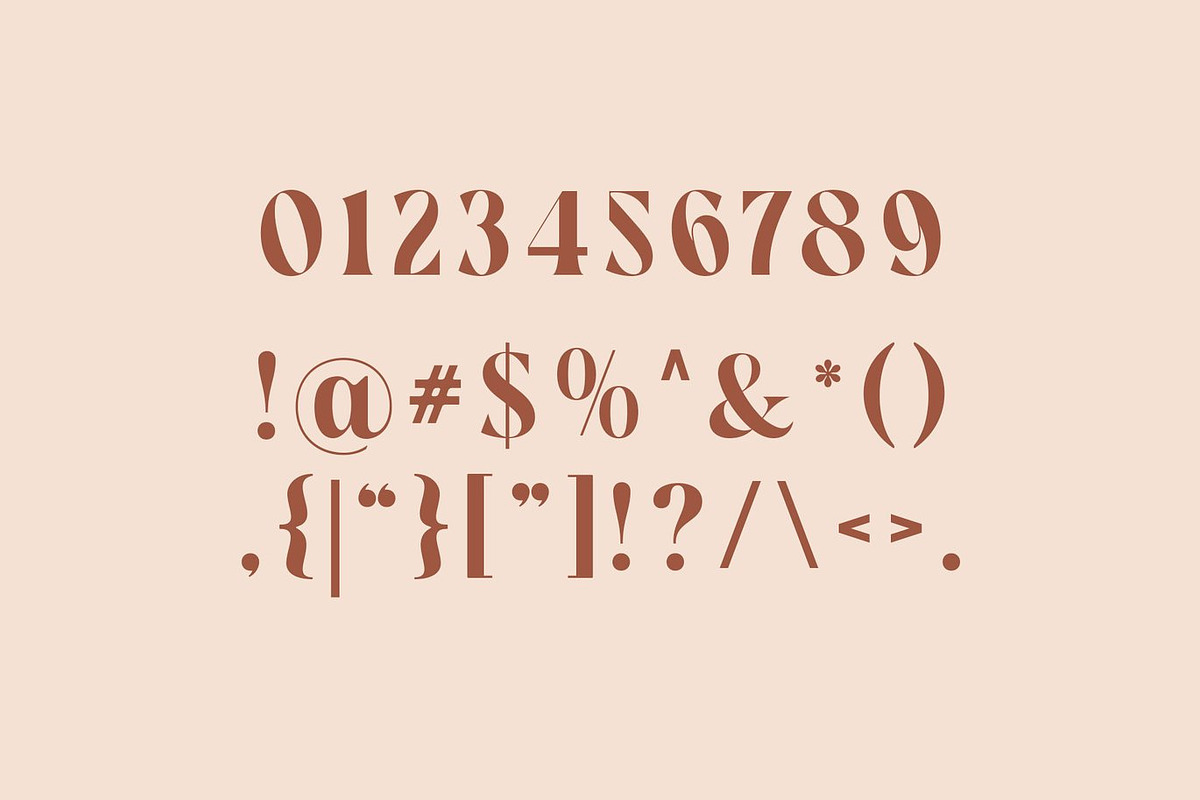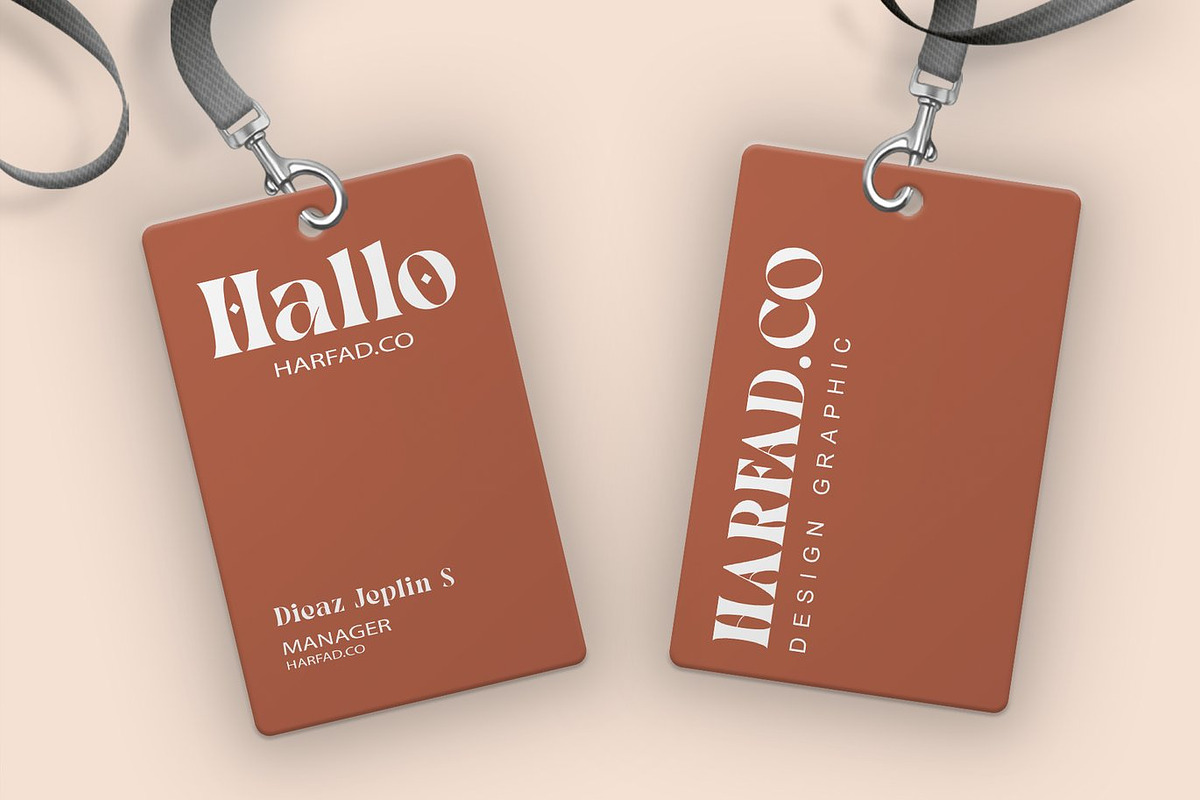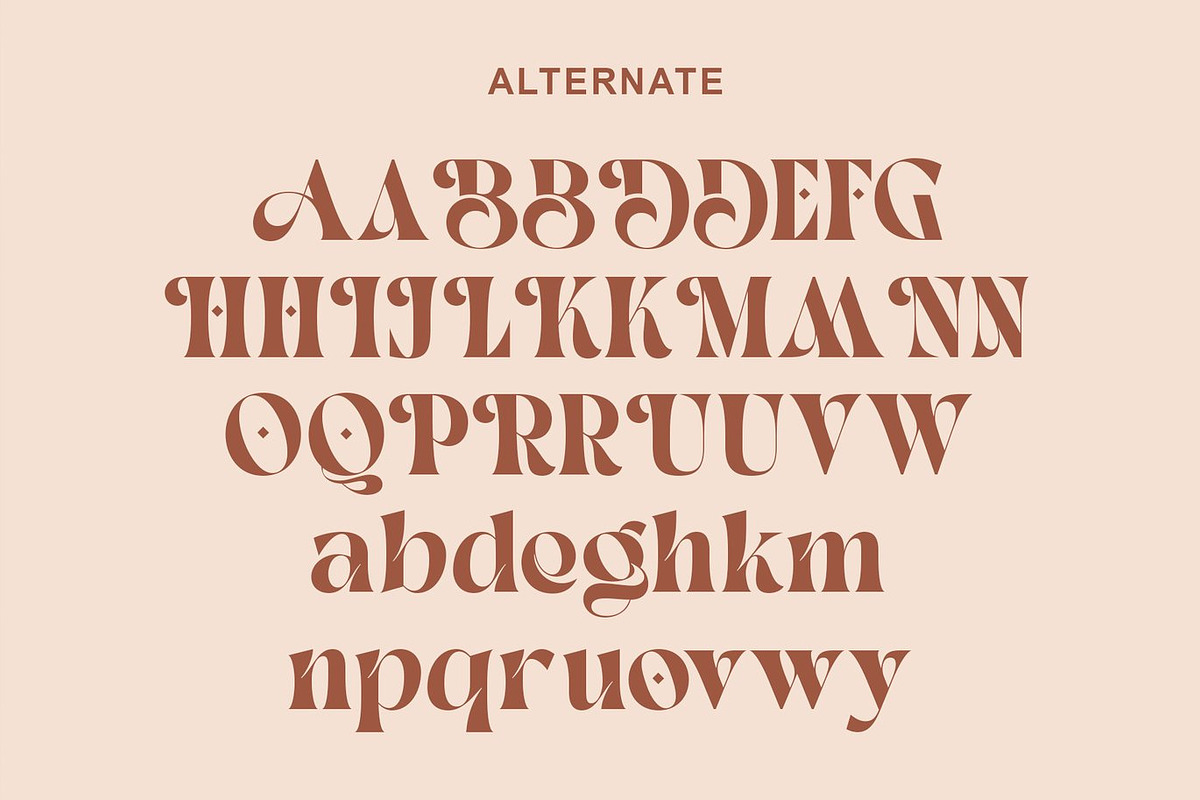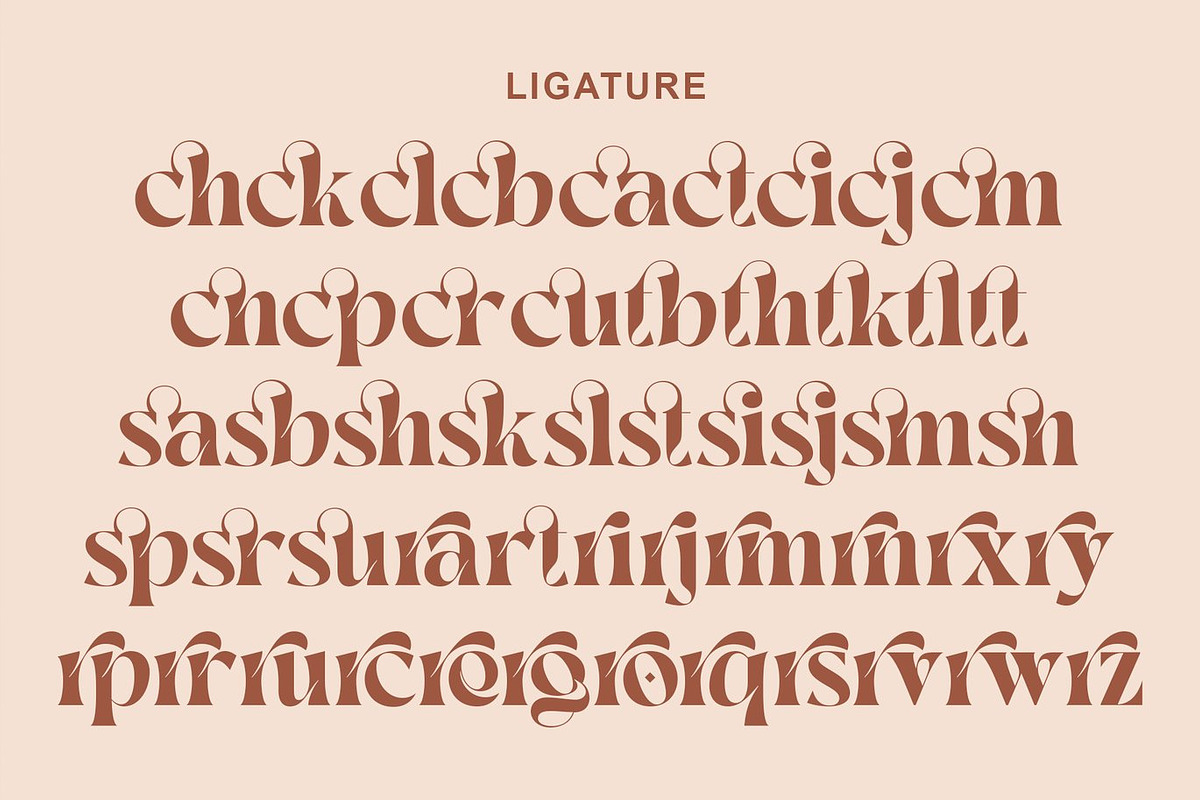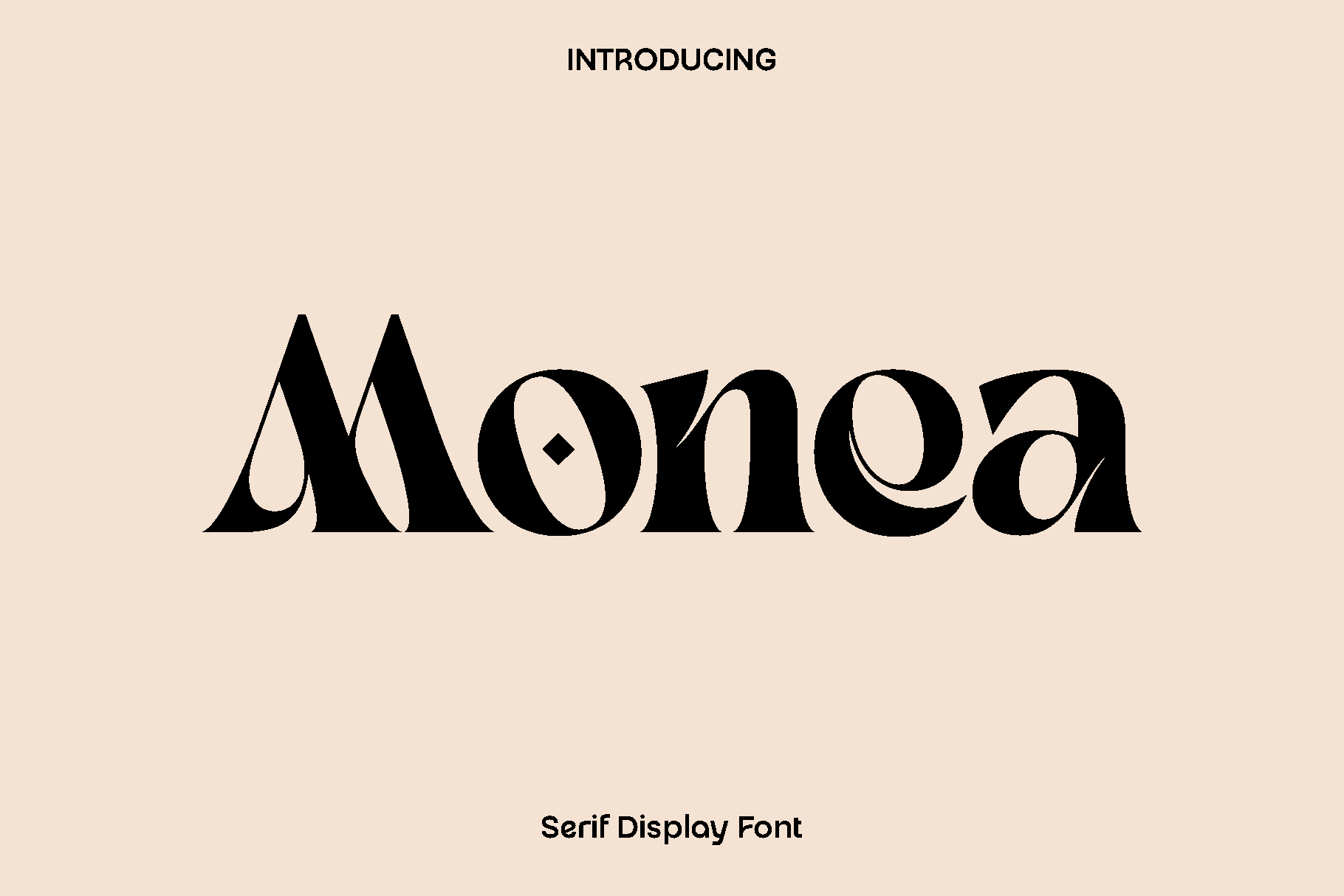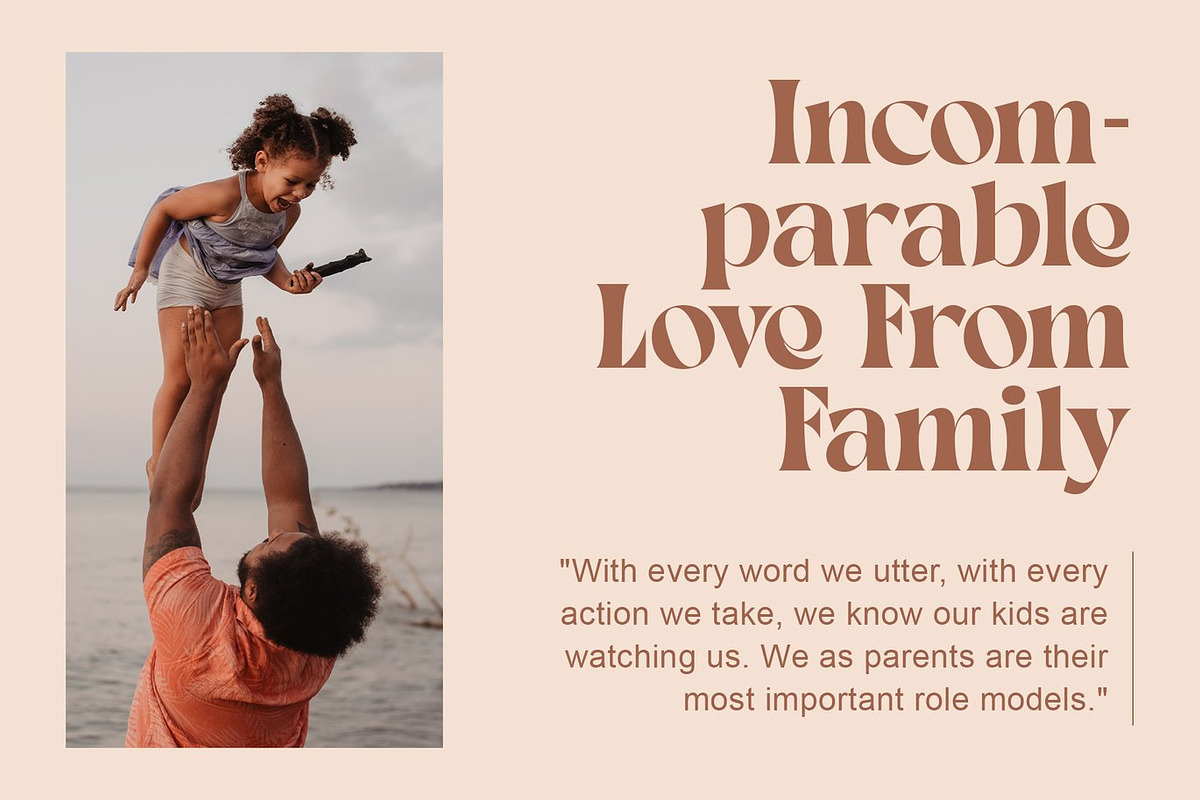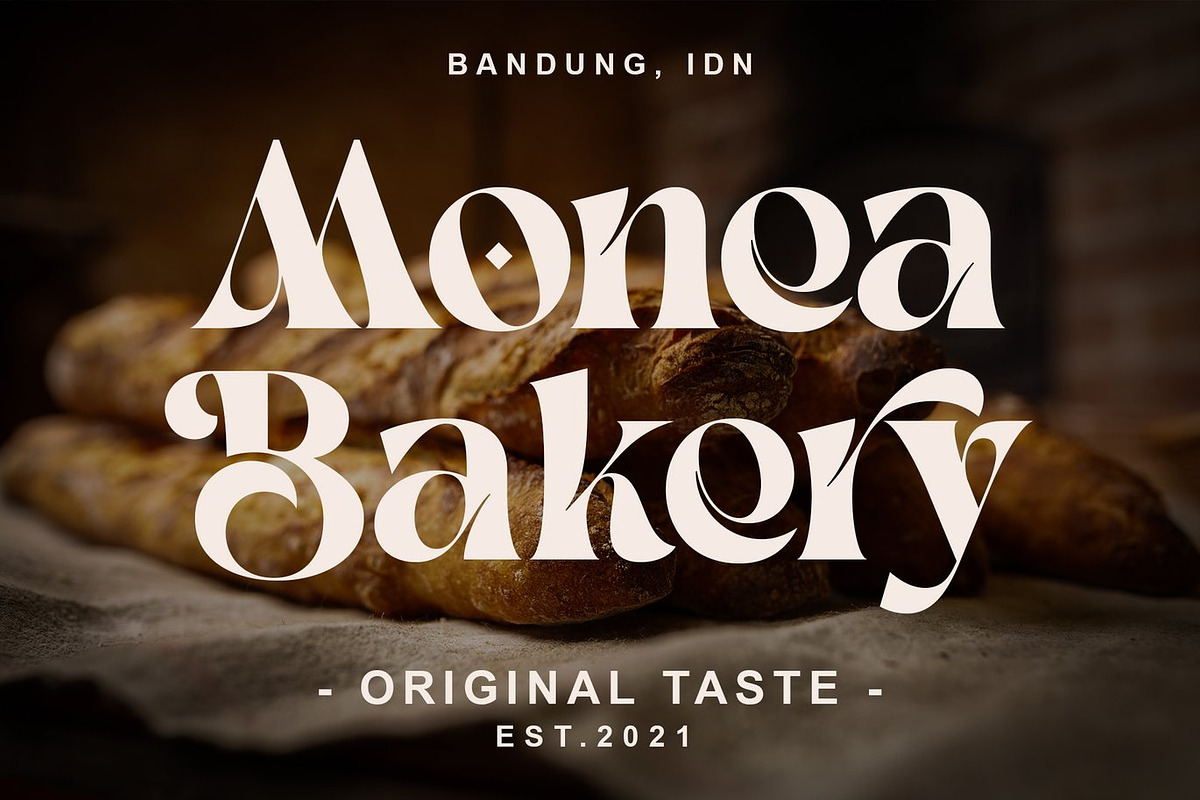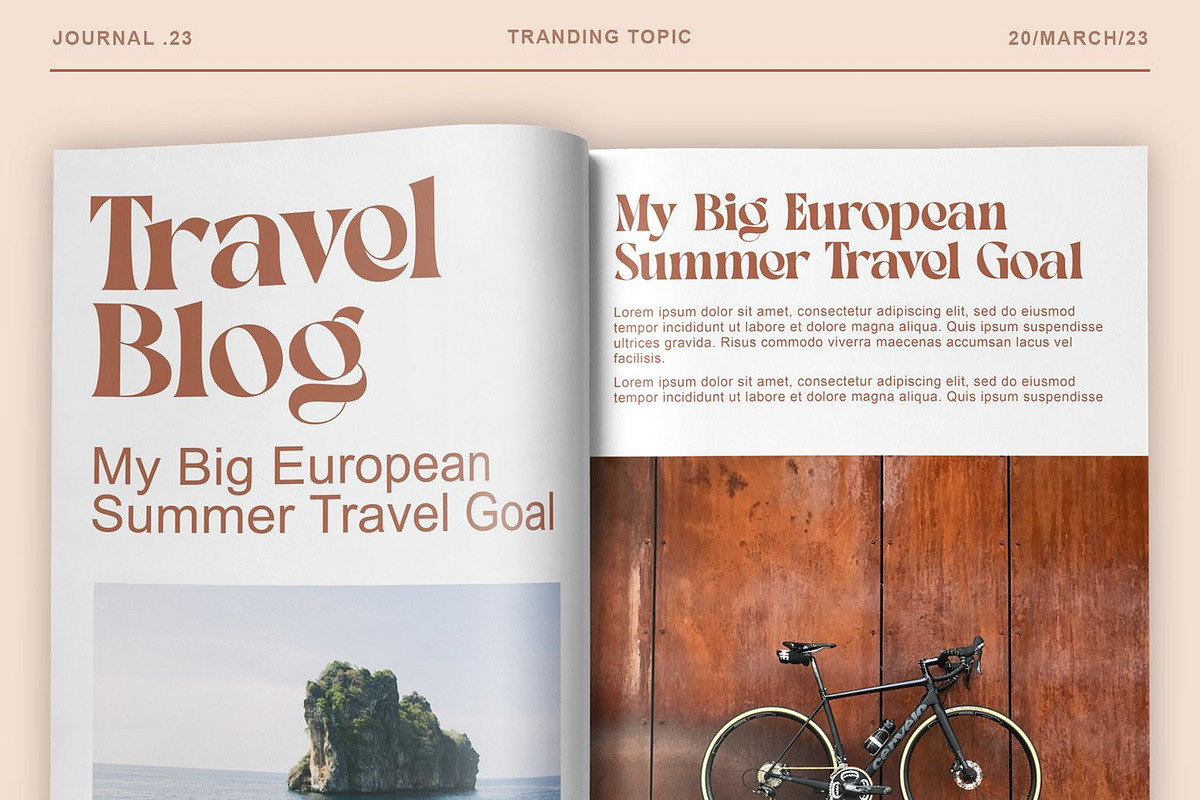
Monea - Serif Display Font
Monea is a serif display font designed to express timeless beauty, femininity, and refined elegance. Inspired by classic typography and graceful details, Monea blends soft curves with balanced proportions to create a romantic and sophisticated visual character. Its carefully crafted letterforms and decorative alternates add a delicate artistic touch, allowing every word to feel expressive, stylish, and beautifully composed.
This font truly shines in designs that require charm and elegance. Monea is perfect for logos and branding, wedding invitations, stationery, editorial layouts, social media posts, advertising visuals, and luxury product packaging. Whether used in headlines or signature typography, it brings a graceful presence that enhances both print and digital designs.
Monea feels warm, elegant, and confident. The font’s feminine personality makes it ideal for beauty brands, fashion labels, lifestyle products, photography watermarks, labels, and special event designs. Its versatility allows designers to create eye catching compositions while maintaining a classic and timeless appeal.
With its elegant alternates and refined serif structure, Monea helps your designs stand out with sophistication and style. It is an excellent choice for creatives who want to communicate beauty, romance, and elegance through typography.
Monea Serif Display Font Features:
• Elegant serif display characters
• Beautiful alternate stylist characters
• Punctuation, numbers, and symbols
• Uppercase and lowercase
• OpenType features